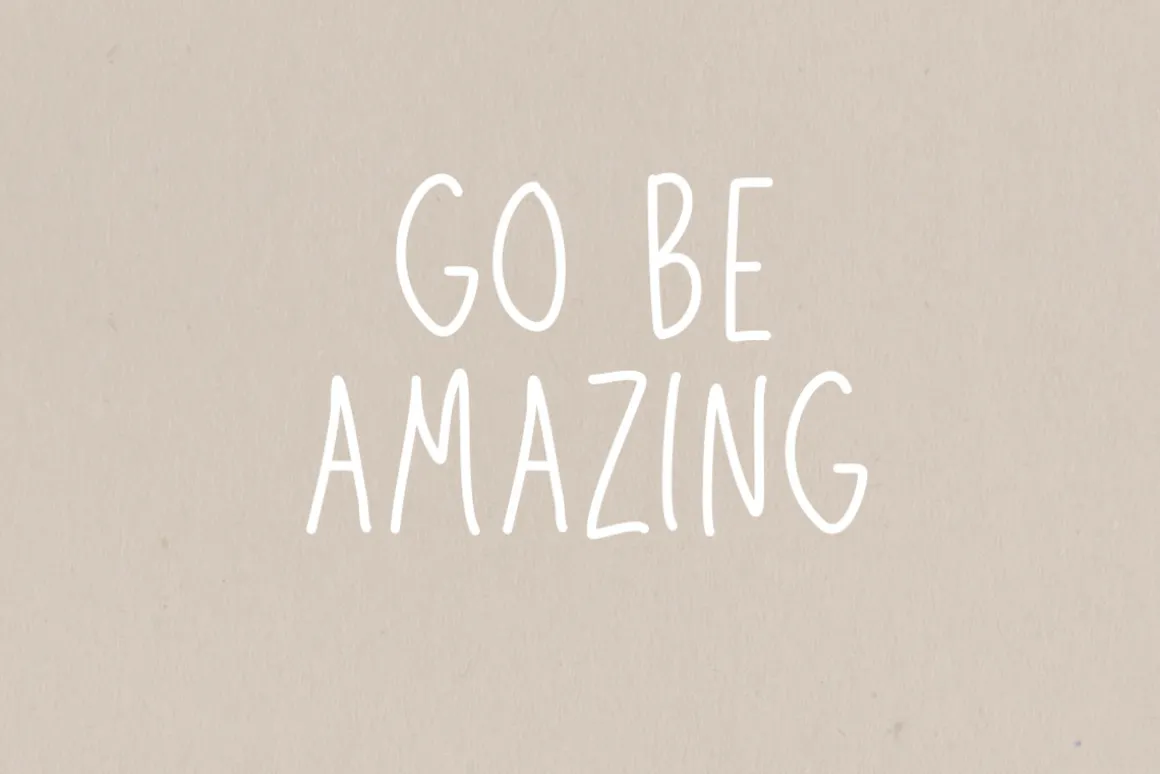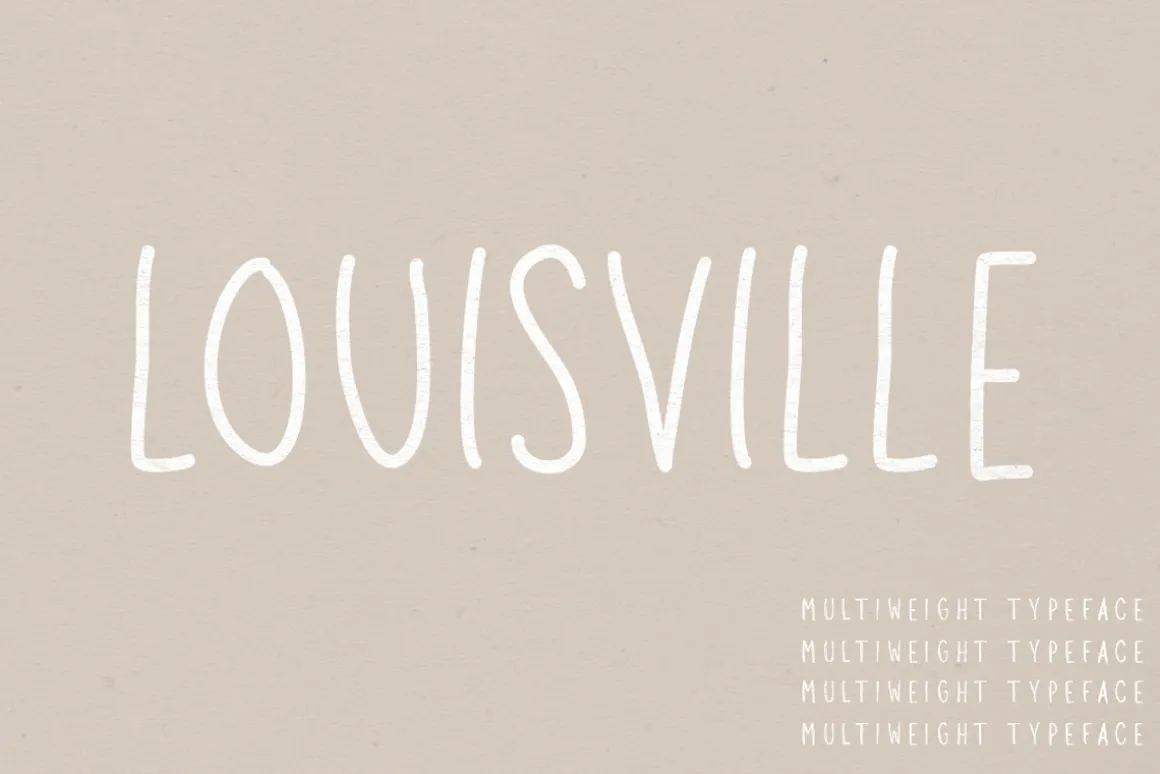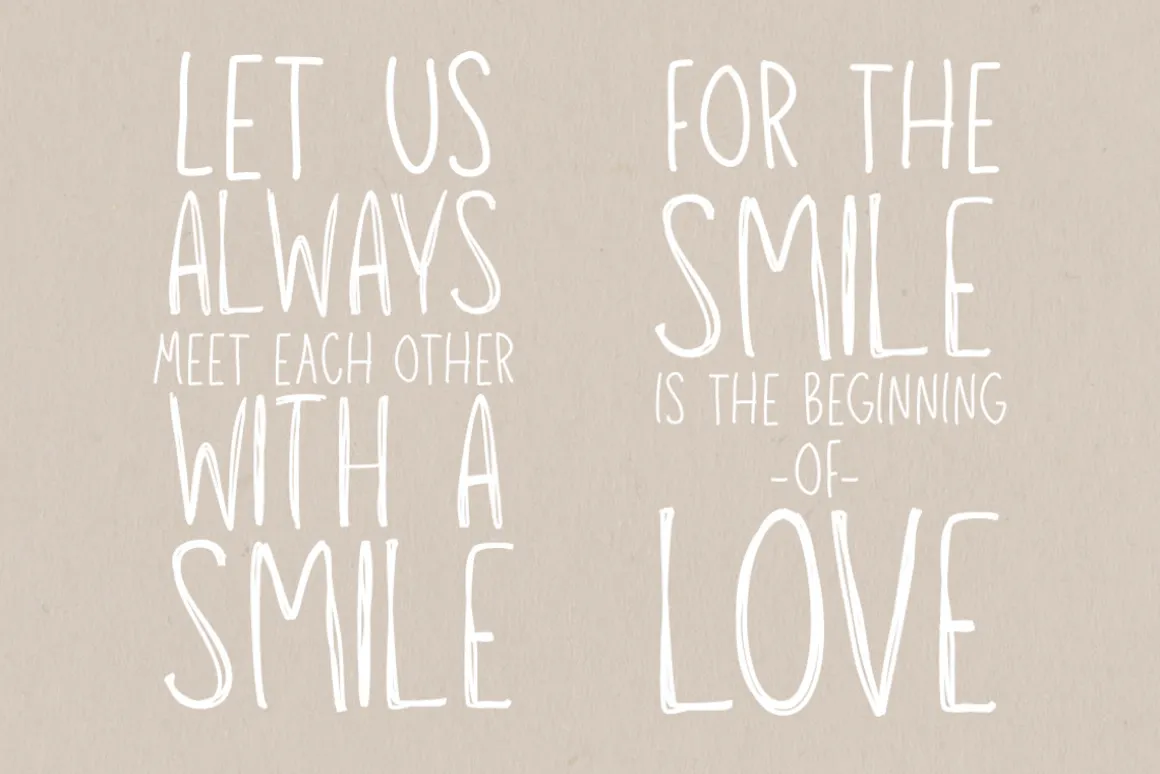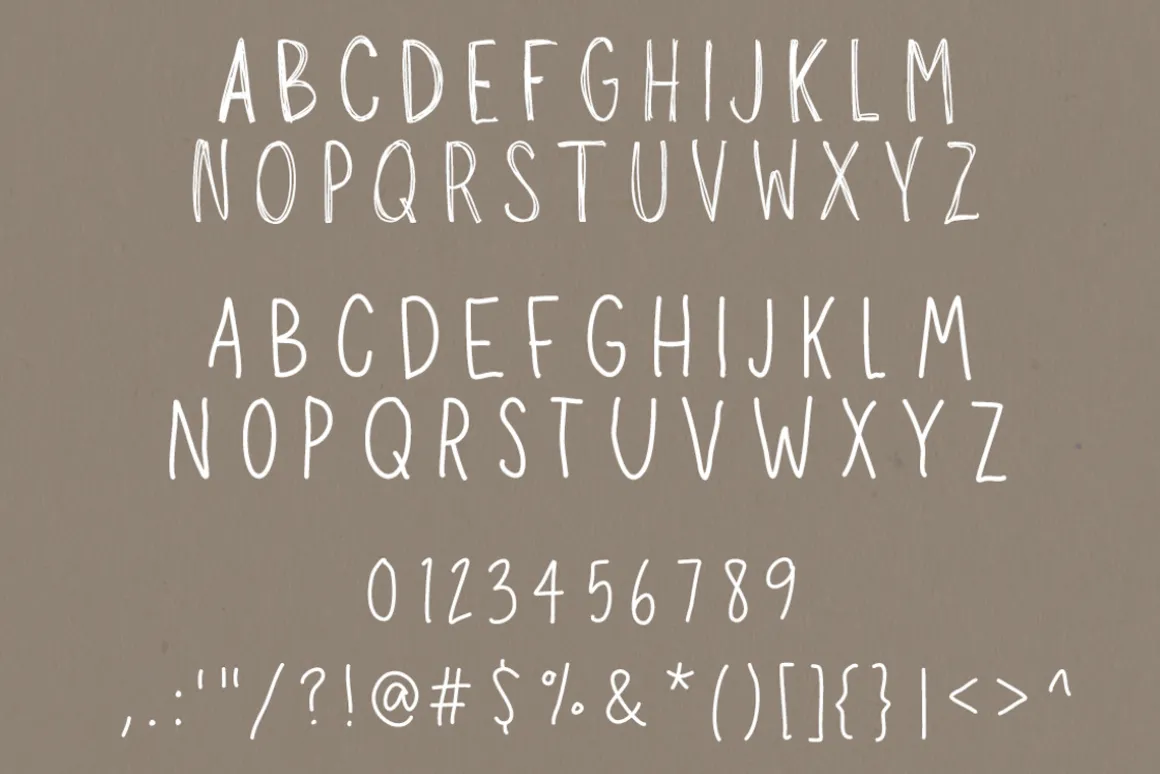
Louisville is a beautiful & trendy hand written sans serif font that boasts two unique weights. Alternate letters are available via the lowercase letters so consecutive letters can have great contrast. Louisville is perfect for typography layouts, invitations, weddings, logos, and so much more! It’s also available as a web font, so you won’t be limited in how you can use it!
- Uppercase & Alternates via lowercase letters
- Numbers & Punctuation
- Non-English Characters & Symbols
- Two Weights